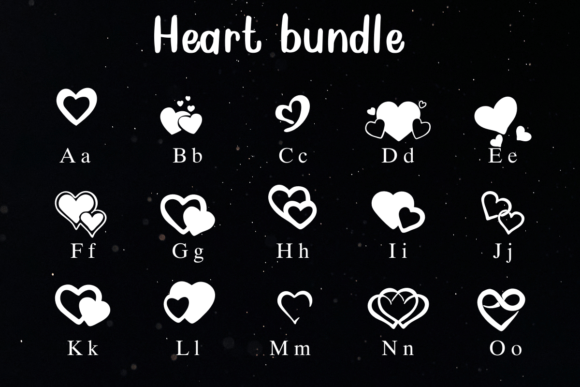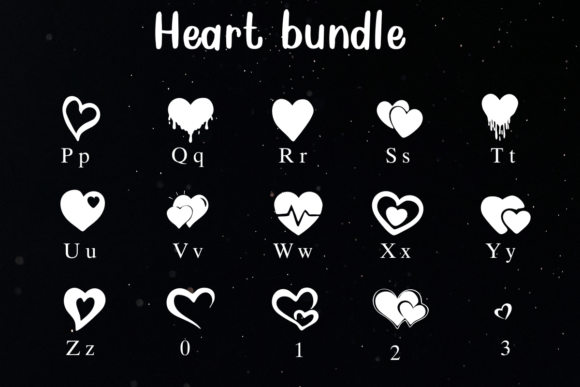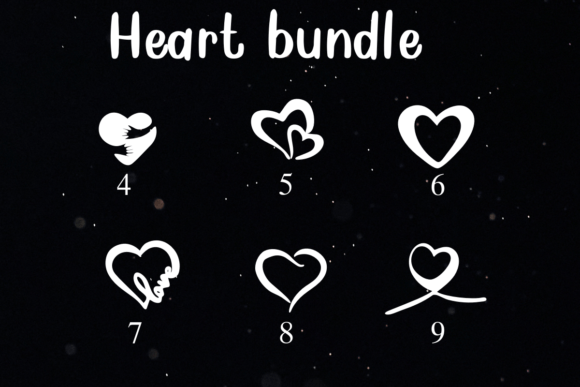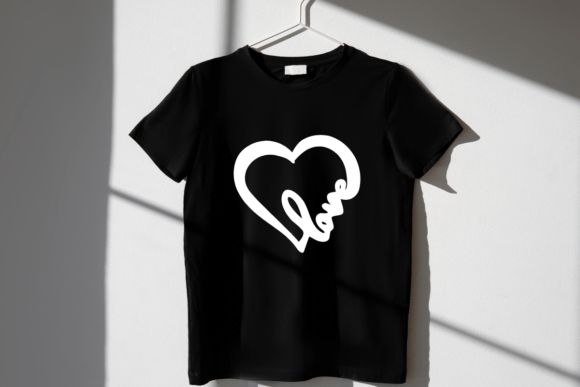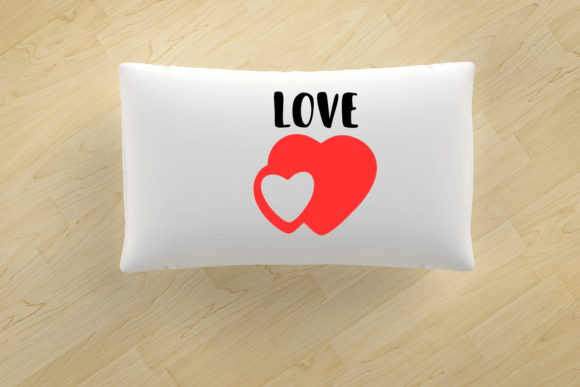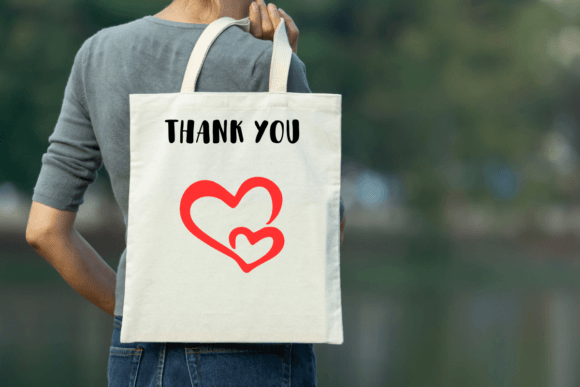
Adding a Touch of Love to Your Designs
You know that moment when you’re working on a project and you just can’t seem to get the right feel? You’re trying to convey love, joy, or whimsy, but the words just aren’t cutting it. That’s when you stumble upon the perfect solution – a font that speaks directly to the heart.
Enter the Hearts Bundle Font, a delightful collection of heart-shaped letters and numbers that will add a touch of sweetness to any project. Whether you’re designing a Valentine’s Day card, a wedding invitation, or a poster for a romantic comedy, this font is sure to bring a smile to your face. As a designer, you know that the right font can make all the difference in conveying your message, and the Hearts Bundle Font is a valuable addition to any toolkit.
Hearts Bundle Font Key Features
- Font Family: A comprehensive collection of 6 fonts, each with its unique style and characteristics.
- Character Set: Includes a wide range of characters, including Latin, Cyrillic, and Greek alphabets, as well as punctuation marks and symbols.
- Resolution: Designed to be resolution-independent, ensuring crisp and clear rendering on any device or screen resolution.
- Unique Characteristics: Each font in the Hearts Bundle has its distinct personality, with unique flourishes, curves, and lines that add a touch of elegance and sophistication to any design.
Hearts Bundle Font Review
As a designer, I was excited to try out the Hearts Bundle Font, and overall, I’m impressed with its unique charm. ✨ The font’s quirky, handwritten feel is perfect for adding a touch of personality to your designs. The bundle includes a variety of font styles, from bold and playful to delicate and elegant, making it a great choice for creatives who like to mix and match.
The Hearts Bundle Font is well-suited for projects that require a touch of whimsy, such as wedding invitations, children’s books, and social media graphics. ✨ The font’s versatility also makes it a great choice for branding and logo design, especially for businesses that want to stand out from the crowd.
While the Hearts Bundle Font is a great addition to any designer’s toolkit, there are some limitations to be aware of. ⚠️ For one, the font’s unique feel can be overwhelming if used excessively, so be sure to balance it with more traditional fonts to avoid visual fatigue. Additionally, the font’s handwritten style can make it difficult to read at smaller sizes, so be sure to test it out at various scales before finalizing your design.
Overall, I’m happy with the Hearts Bundle Font and would recommend it to designers who are looking for a unique, whimsical font to add some personality to their designs. While it may not be suitable for all types of projects, it’s a great choice for creatives who want to add a touch of charm and personality to their work.
- Quirky, handwritten font style
- Includes a variety of font styles and weights
- Perfect for projects that require a touch of whimsy
- Great choice for branding and logo design
- May be overwhelming if used excessively
- Difficult to read at smaller sizes
Hearts Bundle Font Practical Application Guide
The Hearts Bundle Font is a versatile font that can be used in a variety of applications, including:
- Baby shower invitations and decorations
- Valentine’s Day cards and gifts
- Personalized gifts and stationery
For the most effective use of the Hearts Bundle Font, remember to:
- Use it in conjunction with other feminine and romantic design elements.
- Pair the font with bold and playful graphics for